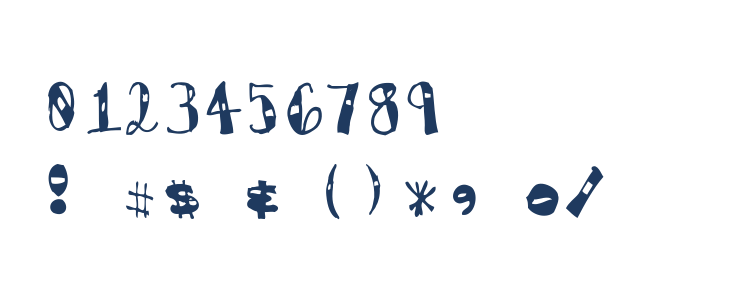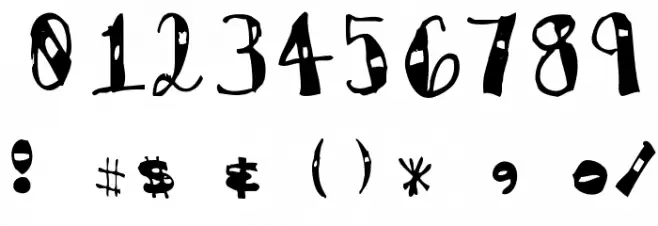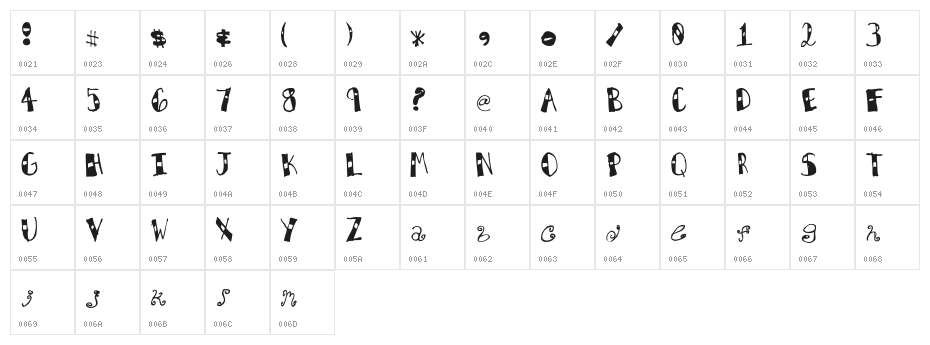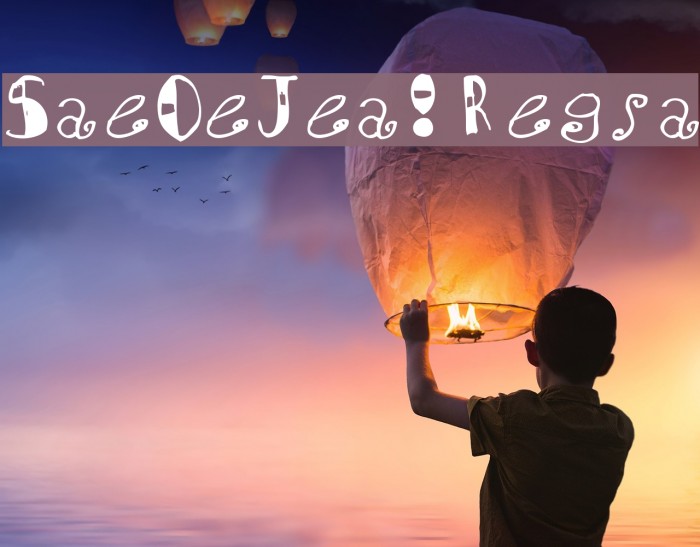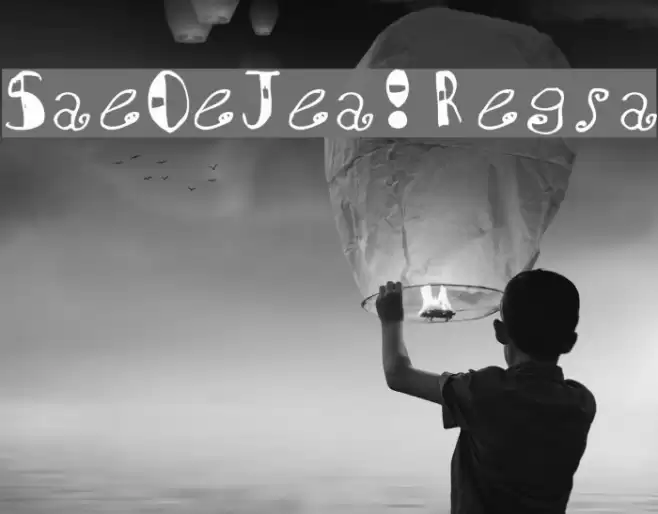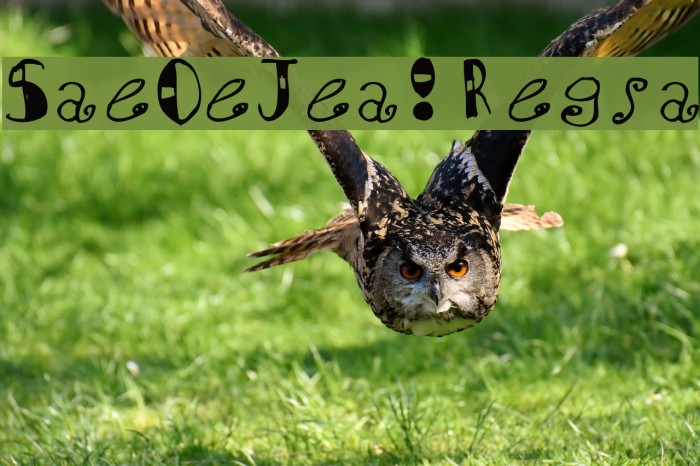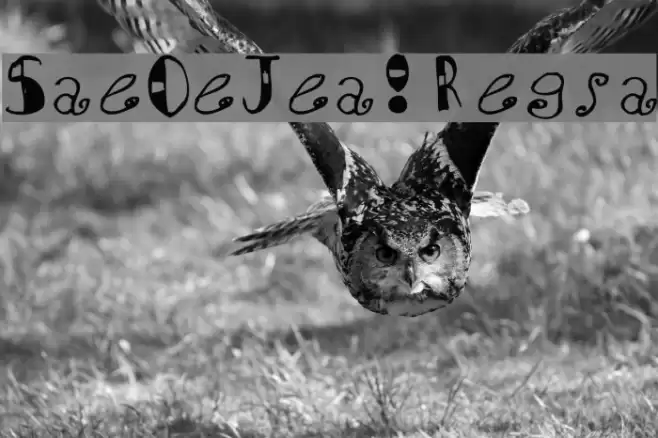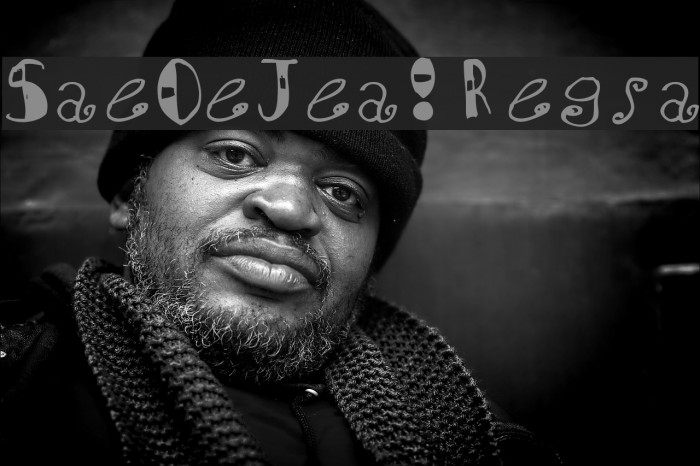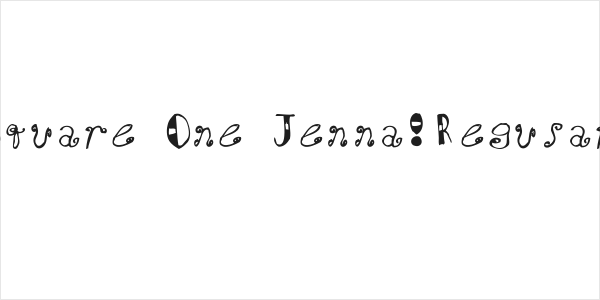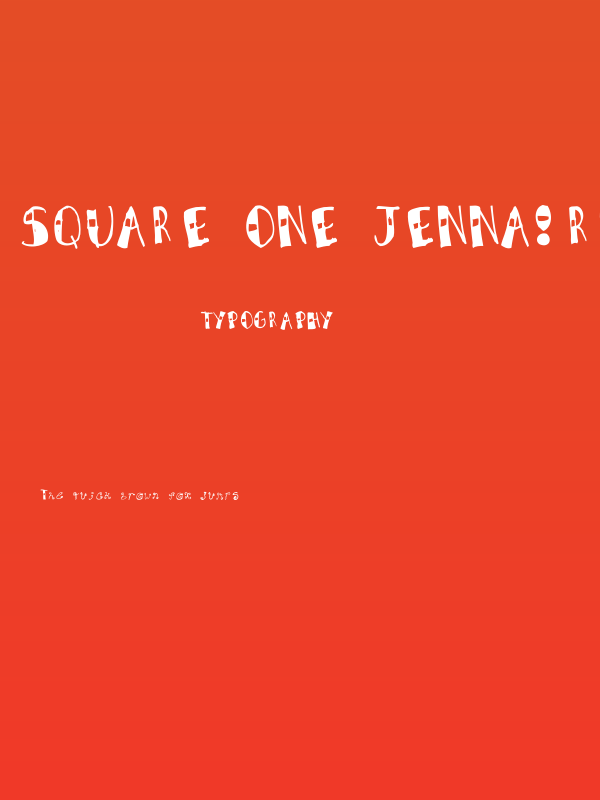
Square One Jenna!Regular Font
Square One Jenna!Regular Description
This font features a playful and whimsical design, characterized by its irregular and quirky letterforms. The uppercase letters are bold and dynamic, with varying stroke widths and unique shapes that give each character a distinct personality. The lowercase letters continue this playful theme, incorporating swirls and loops that add to the font's charm. Numbers and special characters maintain the same whimsical style, ensuring consistency across all glyphs. The font's overall appearance is both eye-catching and fun, making it suitable for creative and informal projects.